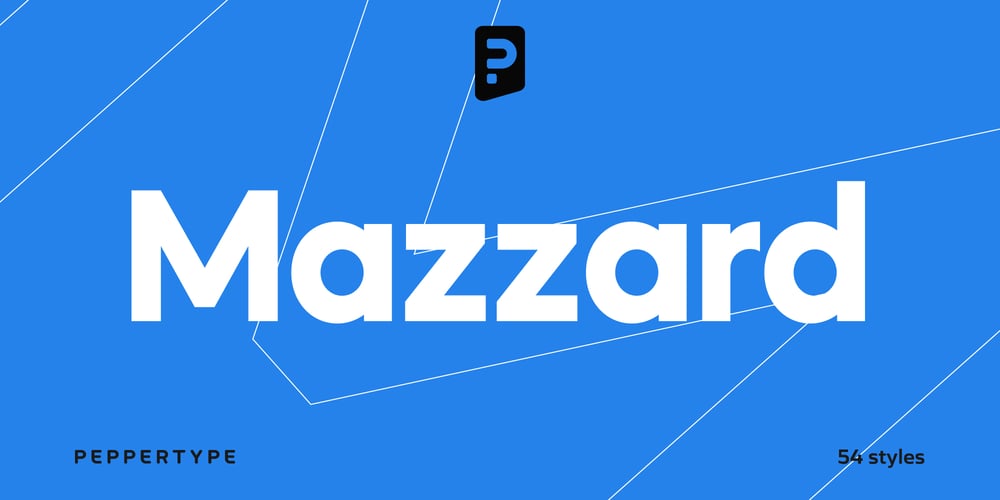
Mazzard
Mazzard font
Mazzard Font Family was designed by Oleh Lishchuk and published by Pepper Type. Mazzard contains 54 styles and family package options. Mazzard is a superfamily of three geometric grotesques with three different x-heights (H, M, and L). It features rich language support including Cyrillic, and offers a wide variety of alternate forms to choose from.Also check Mazzard Soft – the soft version of Mazzard.